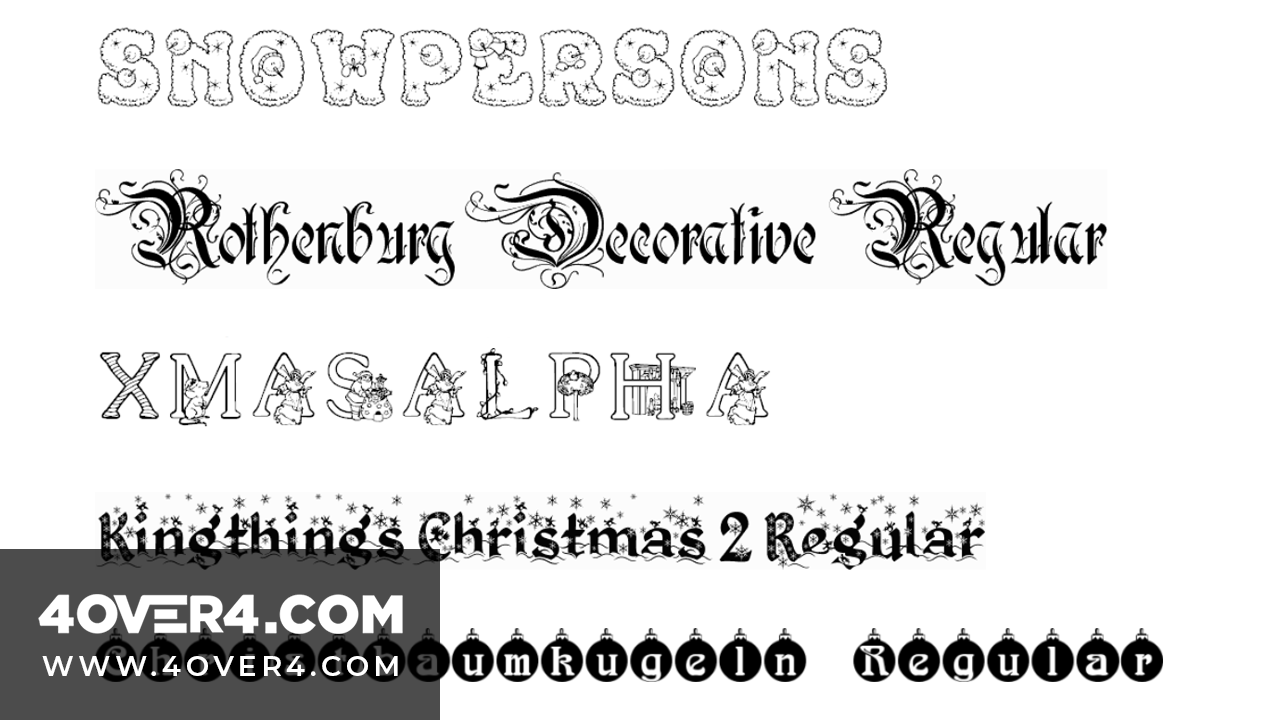
10 Free and Fabulous Holiday Fonts for Web and Print Design
The holidays are all about dazzling your friends, family and customers with inspiring words of love, peace and thanks. They are also about expressing your inner style and creative genius.
To make your holiday greetings and marketing campaigns even more amazing, we’ve compiled a list of 10 free and fabulous holiday fonts that will have everyone dreaming of sugar plums.
These free fonts are perfect for your business’ print or web holiday marketing campaign. Imagine festive fonts for your promotional magnets, postcards, custom mouse pads and business envelopes. These free holiday fonts are not just for your business, use them for your personal greeting cards and be the envy of everyone on your Christmas card list.
Below you’ll find 10 fonts for holiday design that we are sure would ge11t Santa’s seal of approval!
1. Toy Train for the kid in everyone!
holiday train font
2. Beyond Wonderful for magical greetings!
beyond-wonderland.regular font
3. Snowpersons just for fun!
snow people font
4 . Rothenburg Decorative for the sophisticated!
rothenburg-decorative.regular font
5. XmasAlpha font for the merry possibilities!
holiday font
6. Kingsthings Christmas 2 for a white Christmas!
kingthings-christmas-2.regular
7. Christbaumkugeln for joy in the New Year!
christbaumkugeln.regular 2
8. Christmas for elegant simplicity!
christmas font urbanfonts
9. Snowbiz because everyone loves snowmen! (and these are funny ones!)
snowbiz font
10. Mountains of Christmas to bring good tidings!
mountains of christmas font
From fun and heartwarming to elegant and regal, there is definitely a holiday font out there to suit every purpose. With the holidays quickly approaching, we wanted to share some of our favorites. They’re all free, so don’t waste time. Get started on creating store banners, posters and flyers with these holiday fonts and put your Christmas cheer on display!